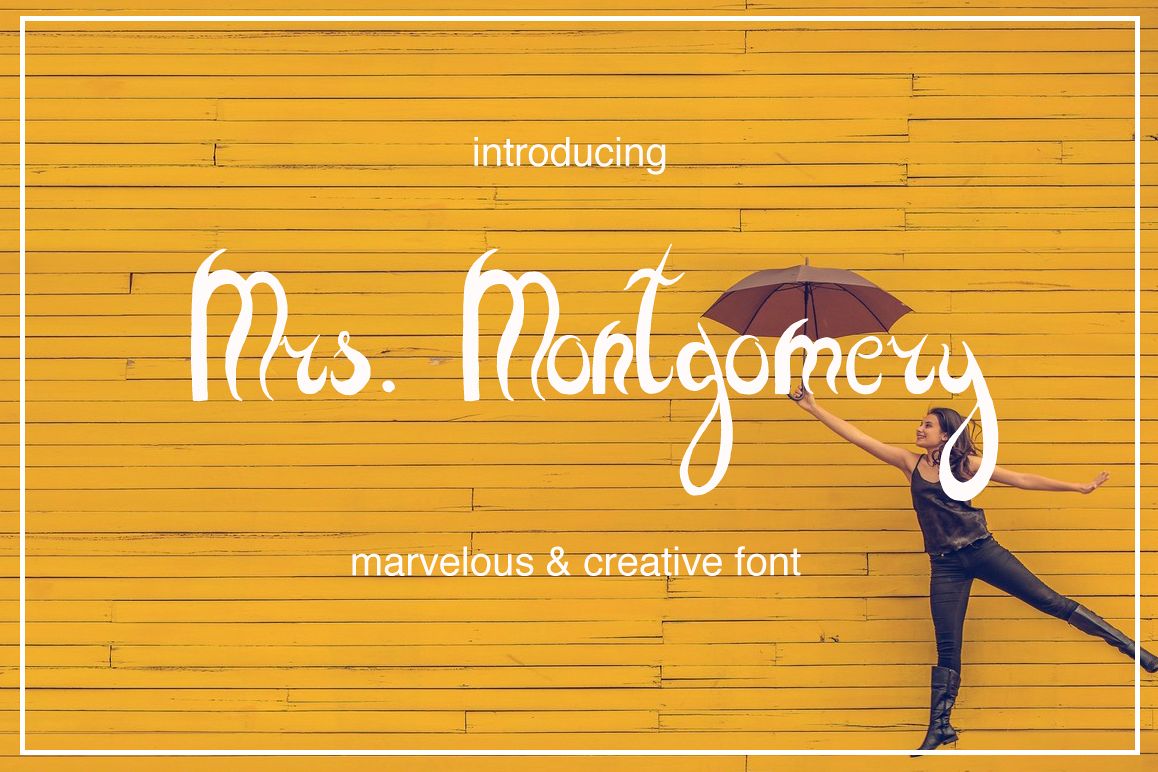
Mrs. Montgomery Brush Font
Introducing Mrs. Montgomery, a new hand lettered brush font with a marvelously creative nature. This elegant, with smooth transitions from thin to bold, following the movement of the ink brush script is designed to be perfectly looked in all your projects.This brush font is ideal for greetings, logos, branding materials, quotes, packaging, posters and more!